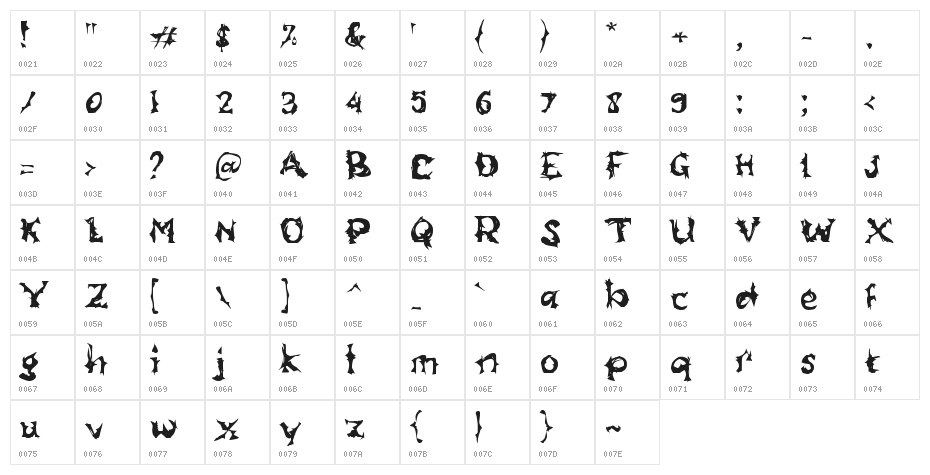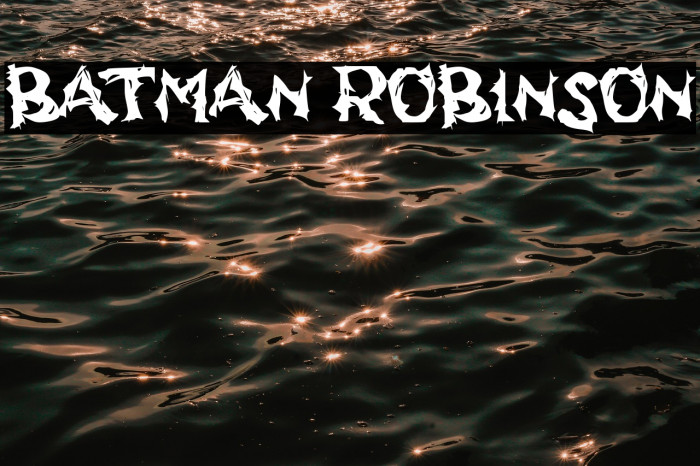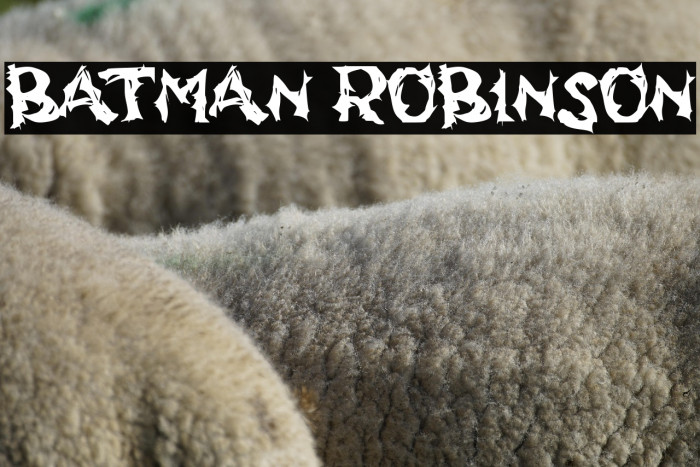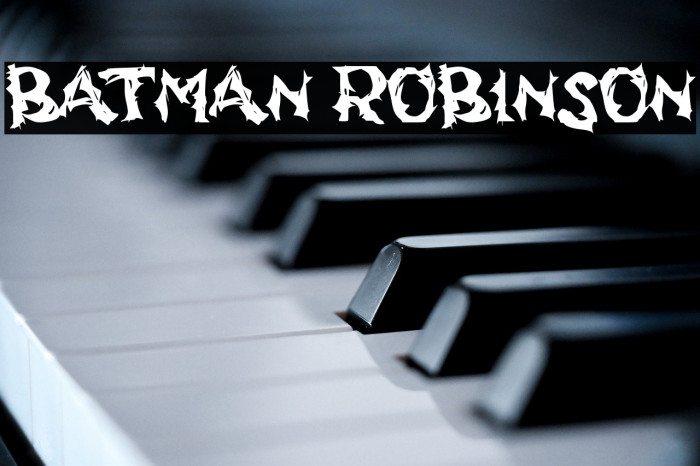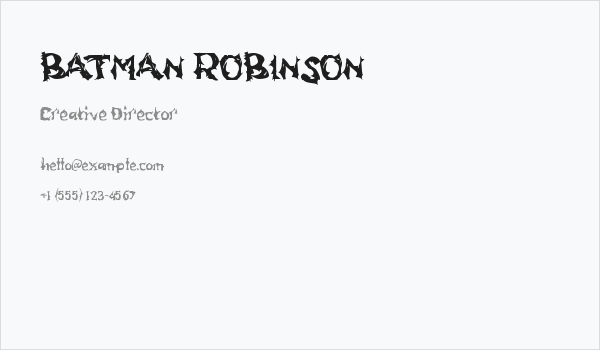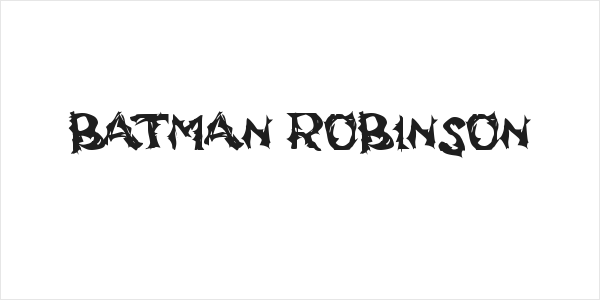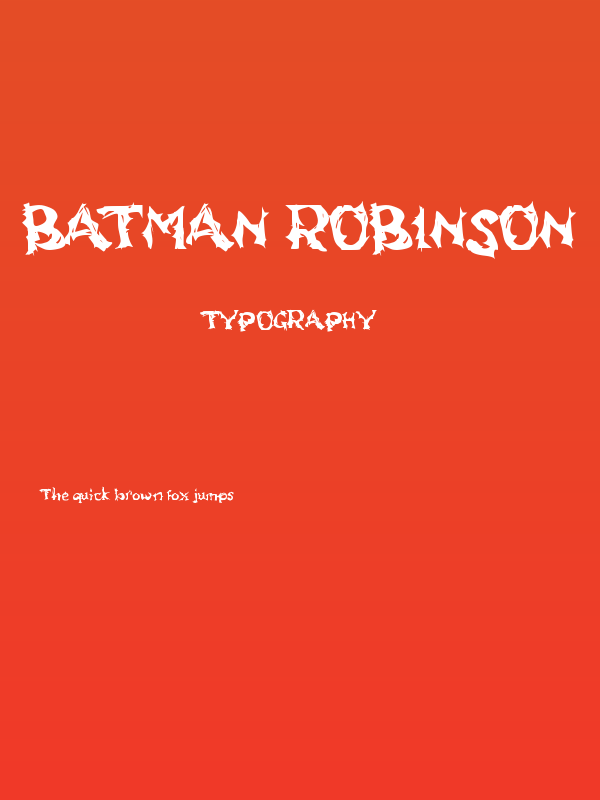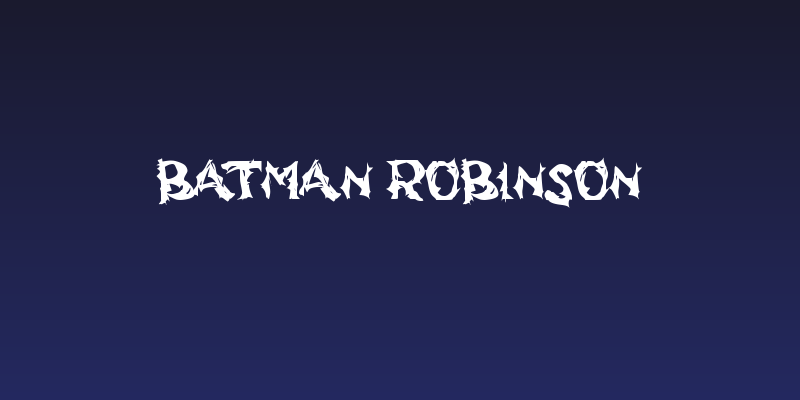
BATMAN ROBINSON Font
BATMAN ROBINSON Description
This font features a bold and jagged design, reminiscent of sharp thorns or shattered glass. The characters are highly stylized with irregular edges, creating a sense of movement and intensity. The uppercase and lowercase letters maintain a consistent theme, with each character appearing as if it has been carved or torn. The numbers and special characters follow the same aesthetic, ensuring a cohesive look across all glyphs. This font's unique style makes it stand out, perfect for projects that require a dramatic and edgy appearance.
| Proposed Projects | Ideal for horror-themed designs, edgy posters, album covers, or video game titles. |